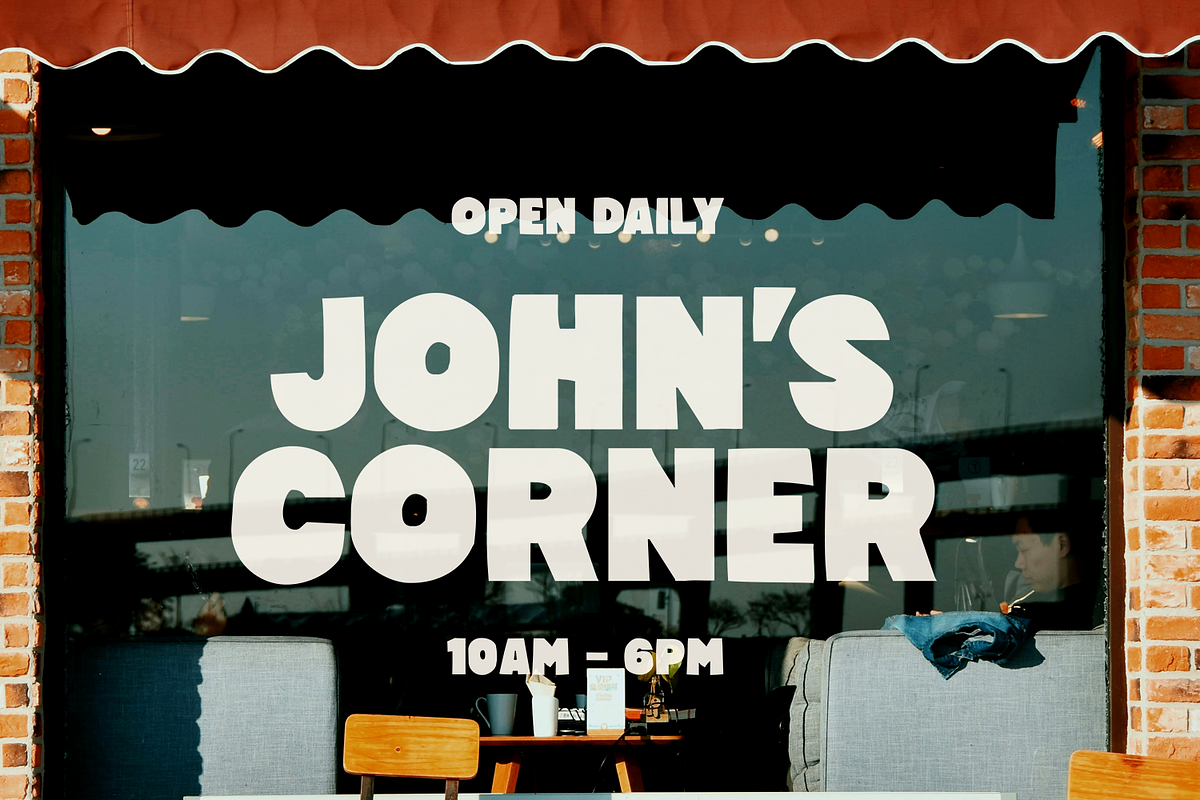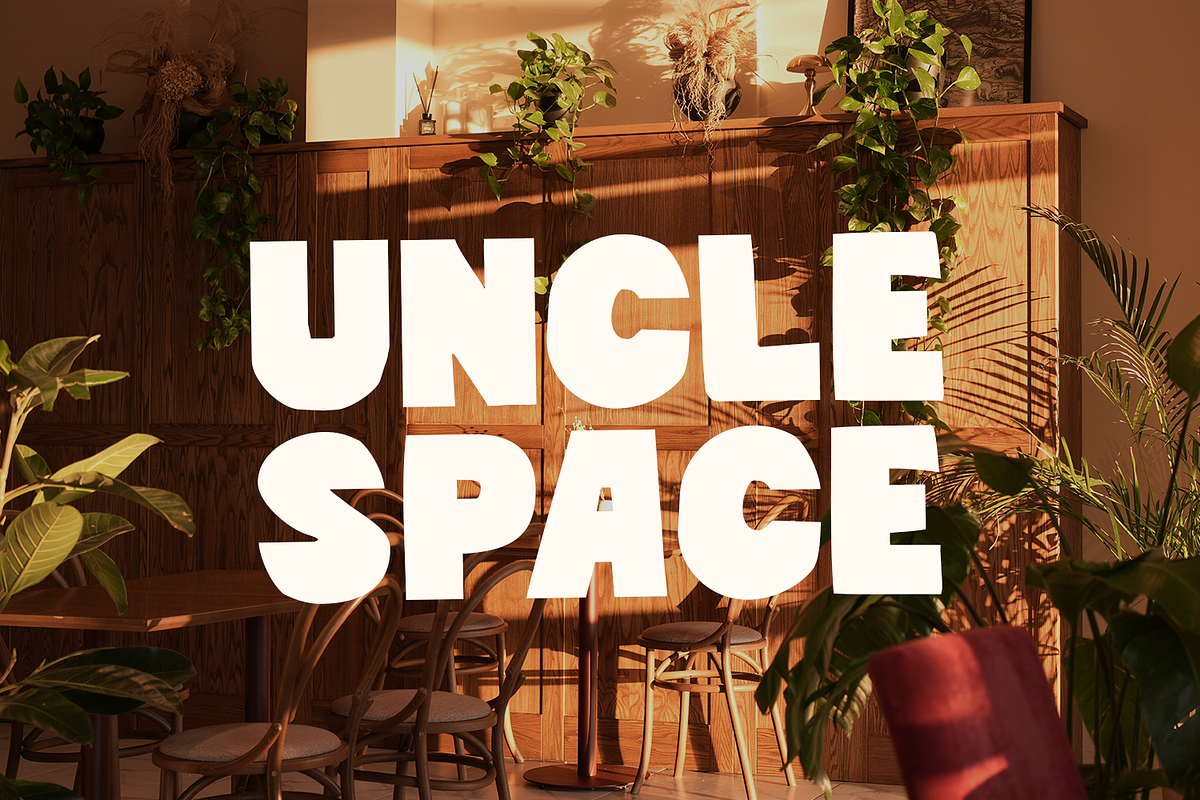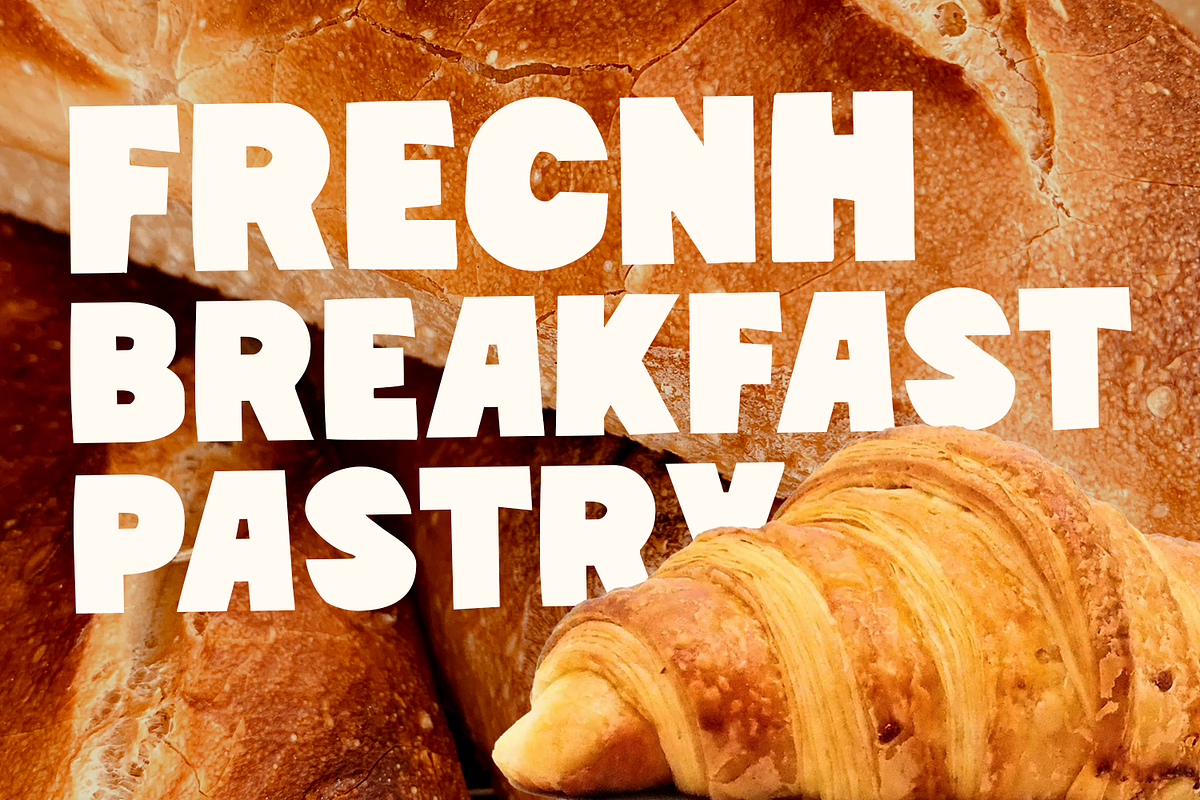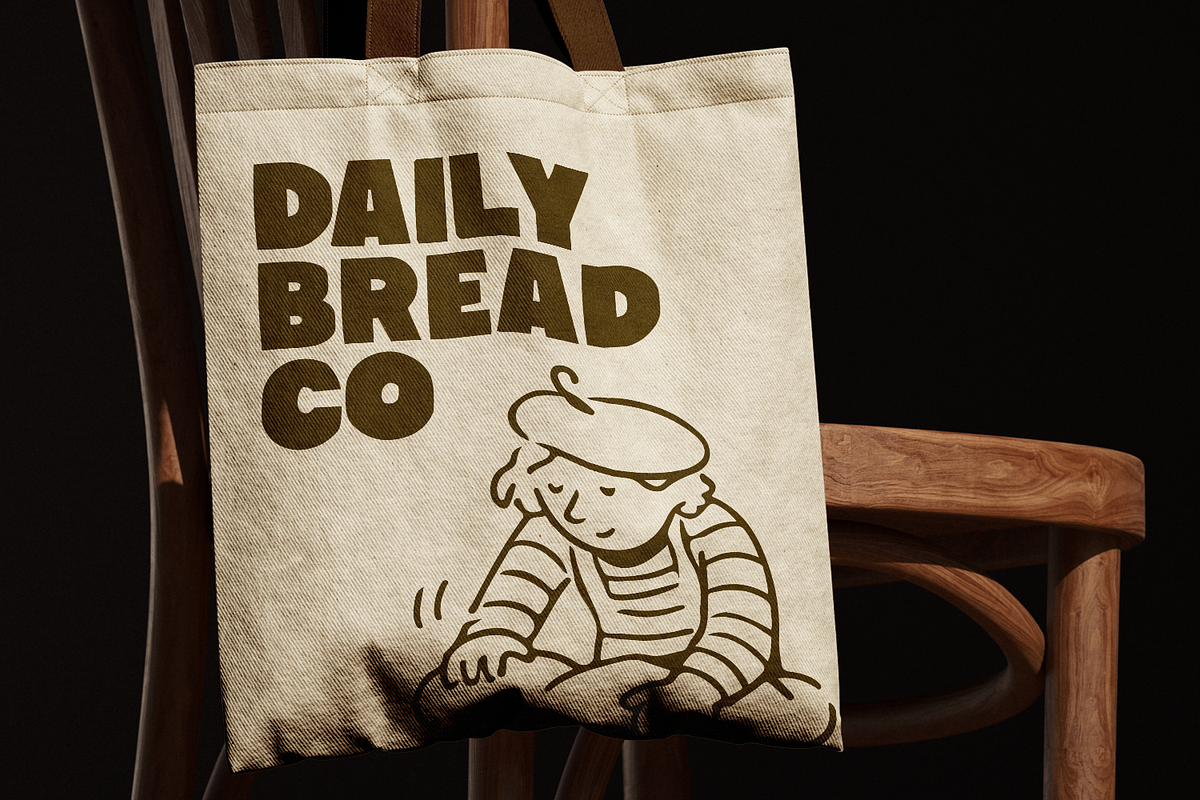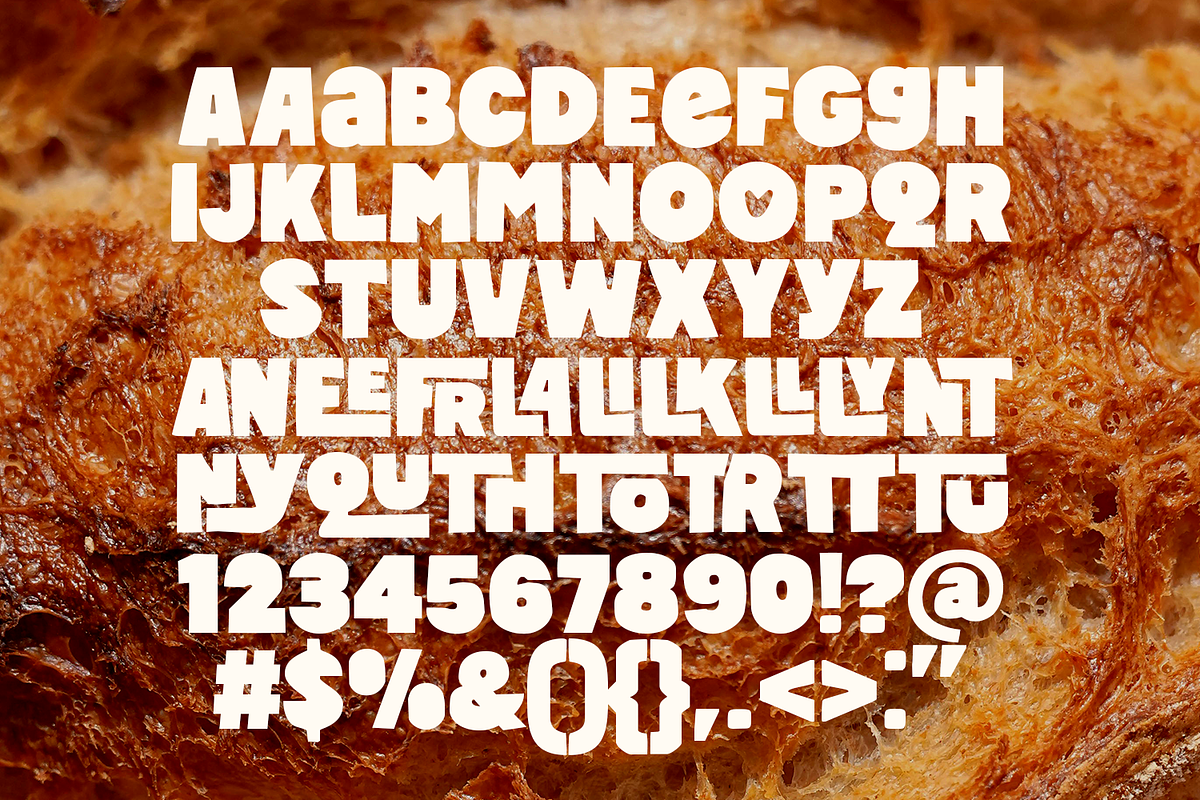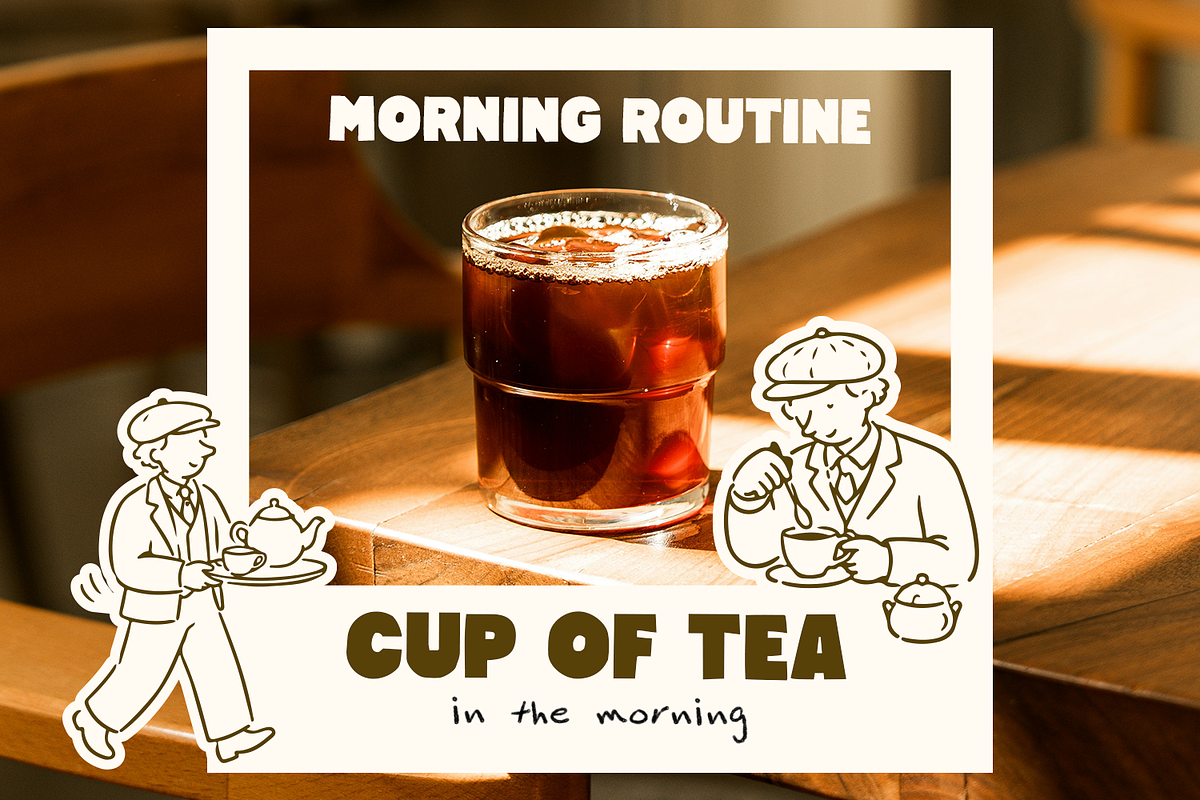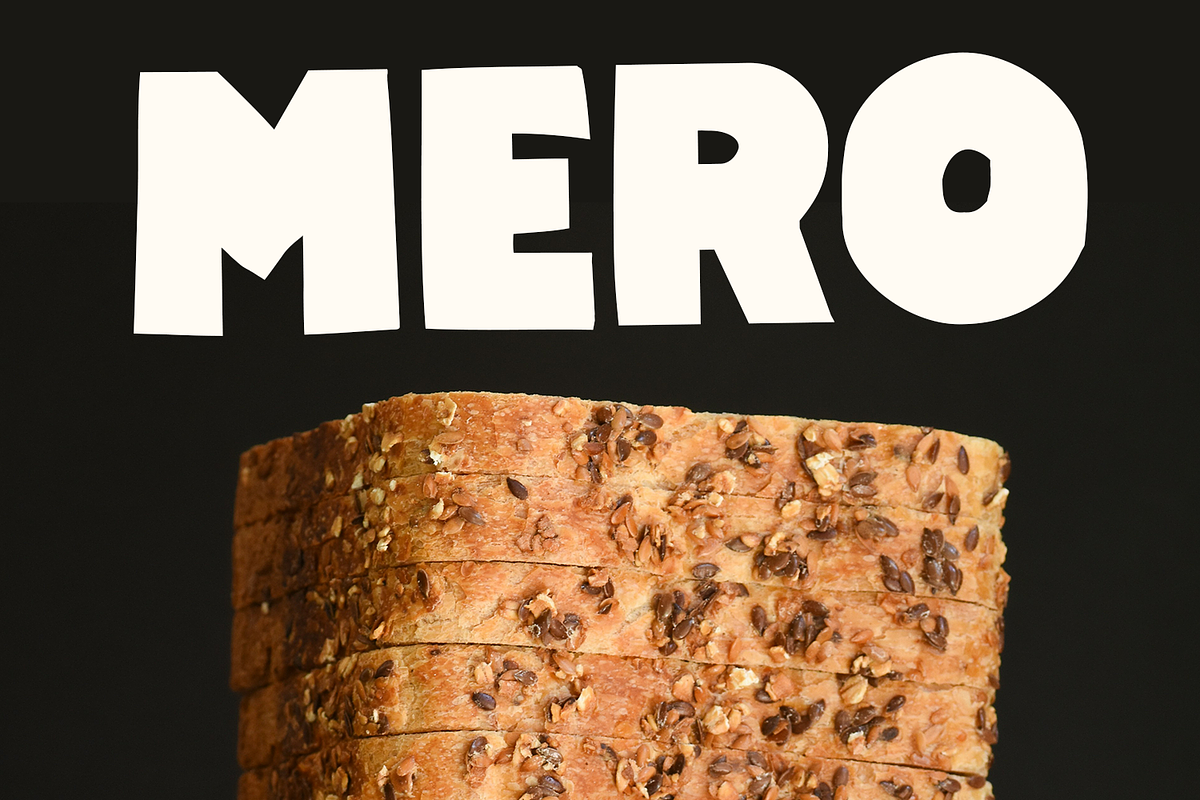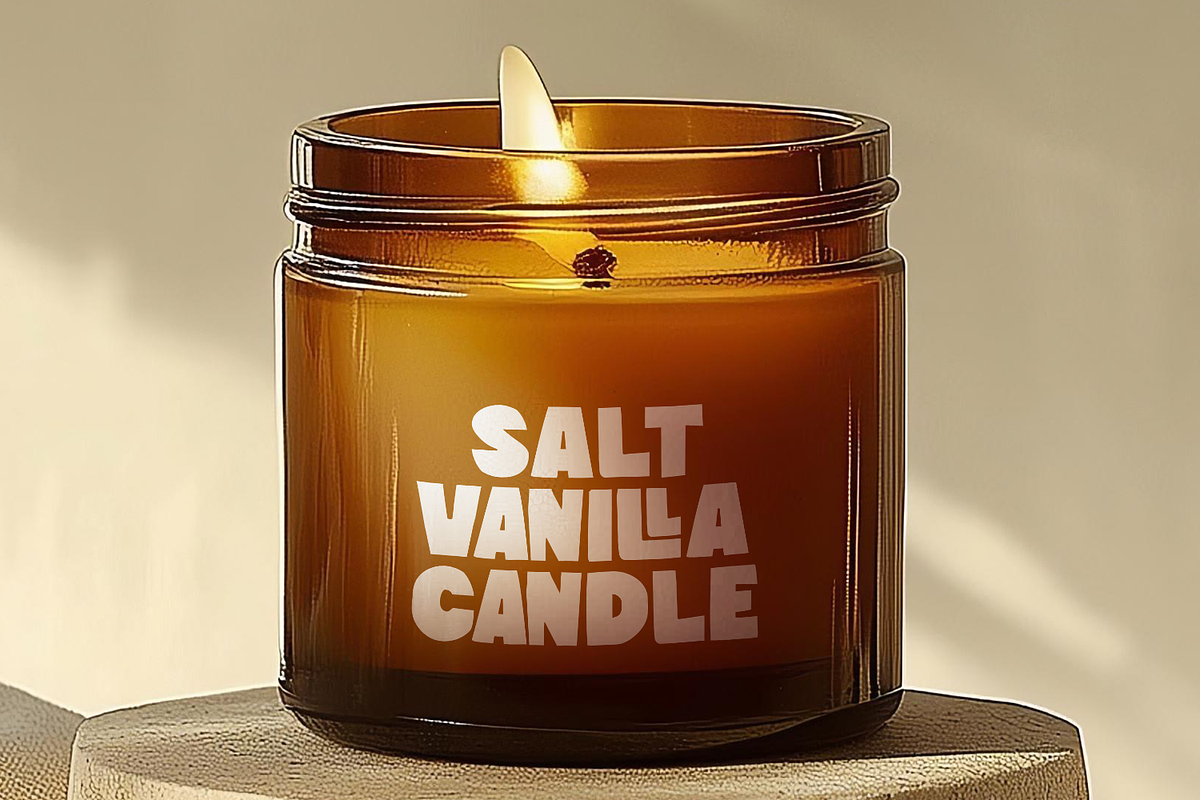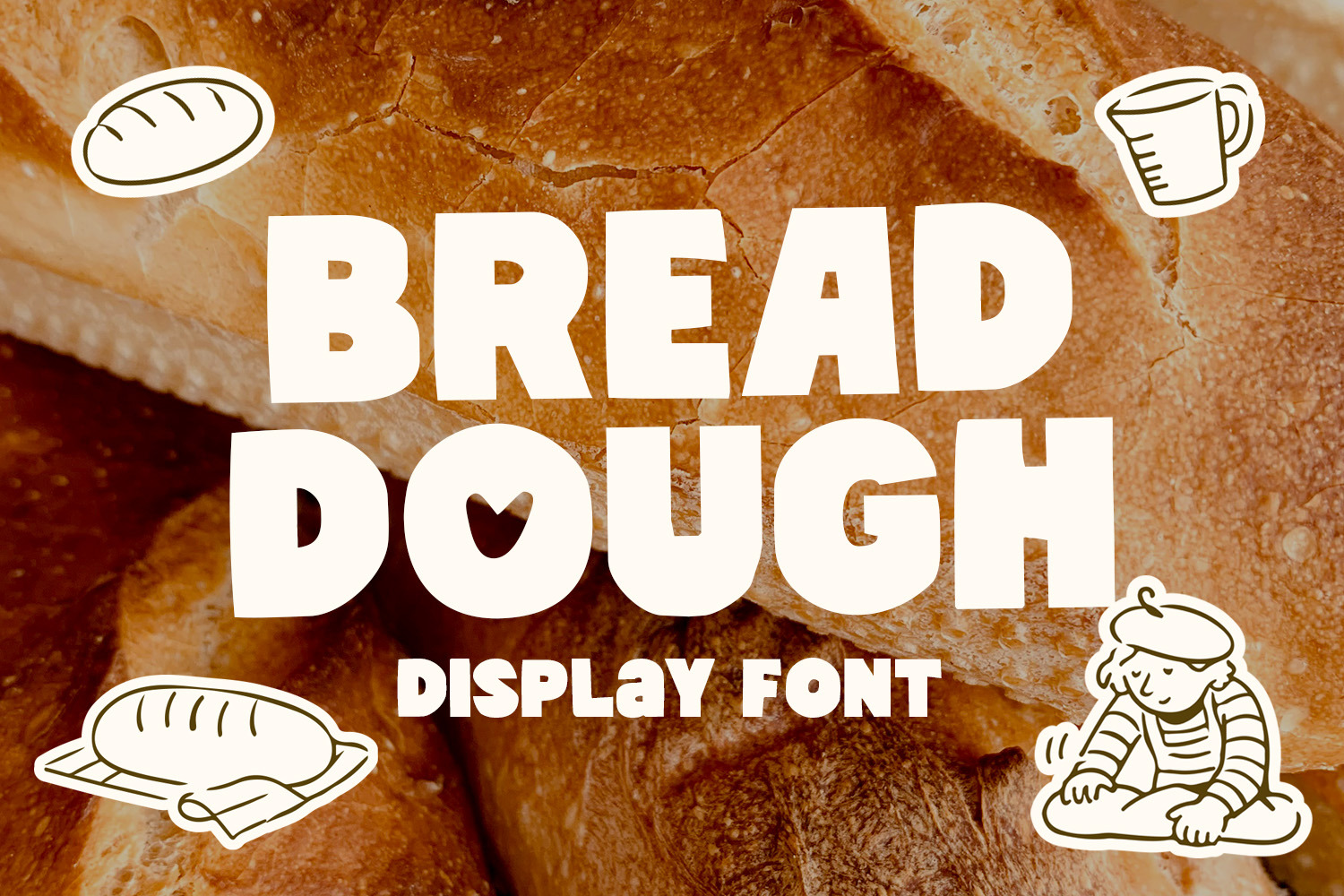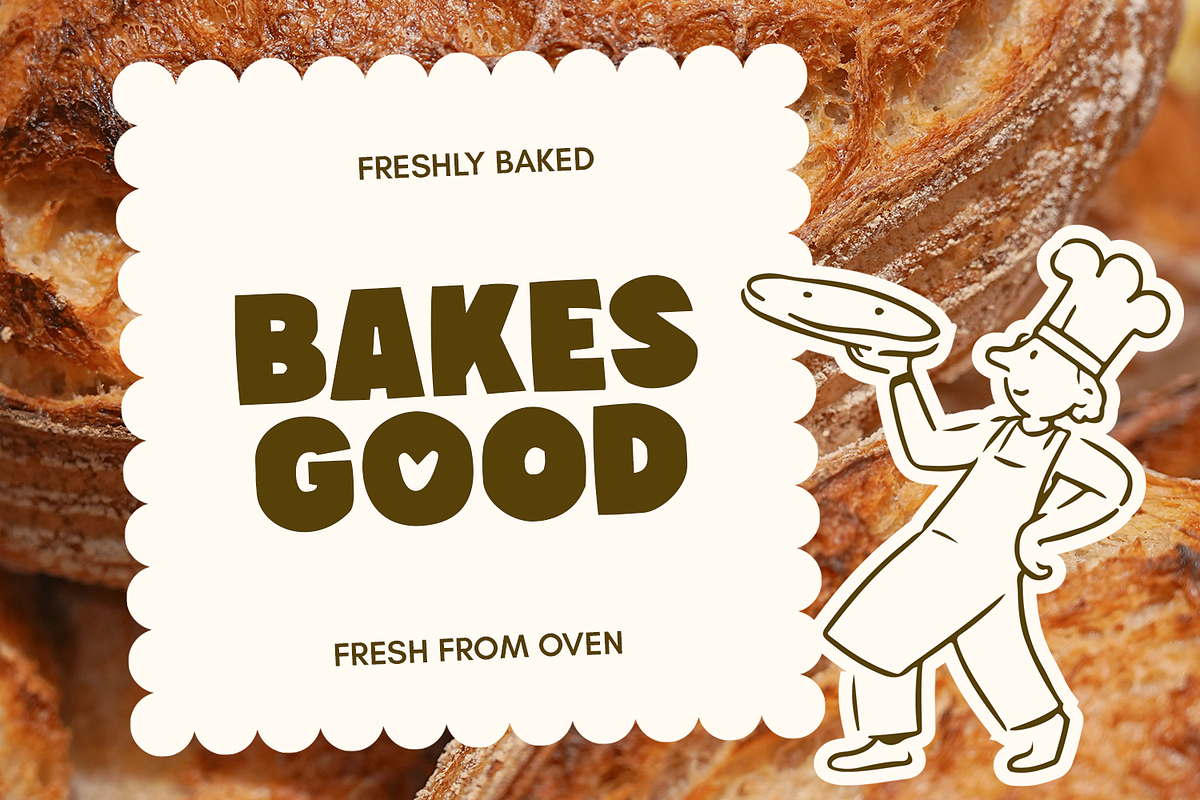
Bread Dough Bold Display Font
Bread Dough is a playful display font characterized by its bold shapes, soft curves, and a handcrafted feel. This font is designed to be friendly, eye-catching, and full of personality, featuring uppercase and lowercase letters, numerals, and punctuation. It is perfect for a variety of applications, including logos, packaging, branding, posters, social media, and standout headlines. Whether you are creating a food brand, a creative business, a lifestyle product, or a fun marketing campaign, Bread Dough adds warmth and character to your projects. Its bold yet approachable style ensures that designs are memorable, expressive, and instantly lovable.